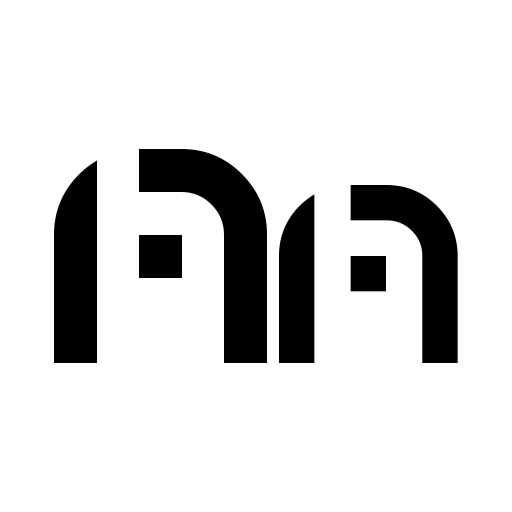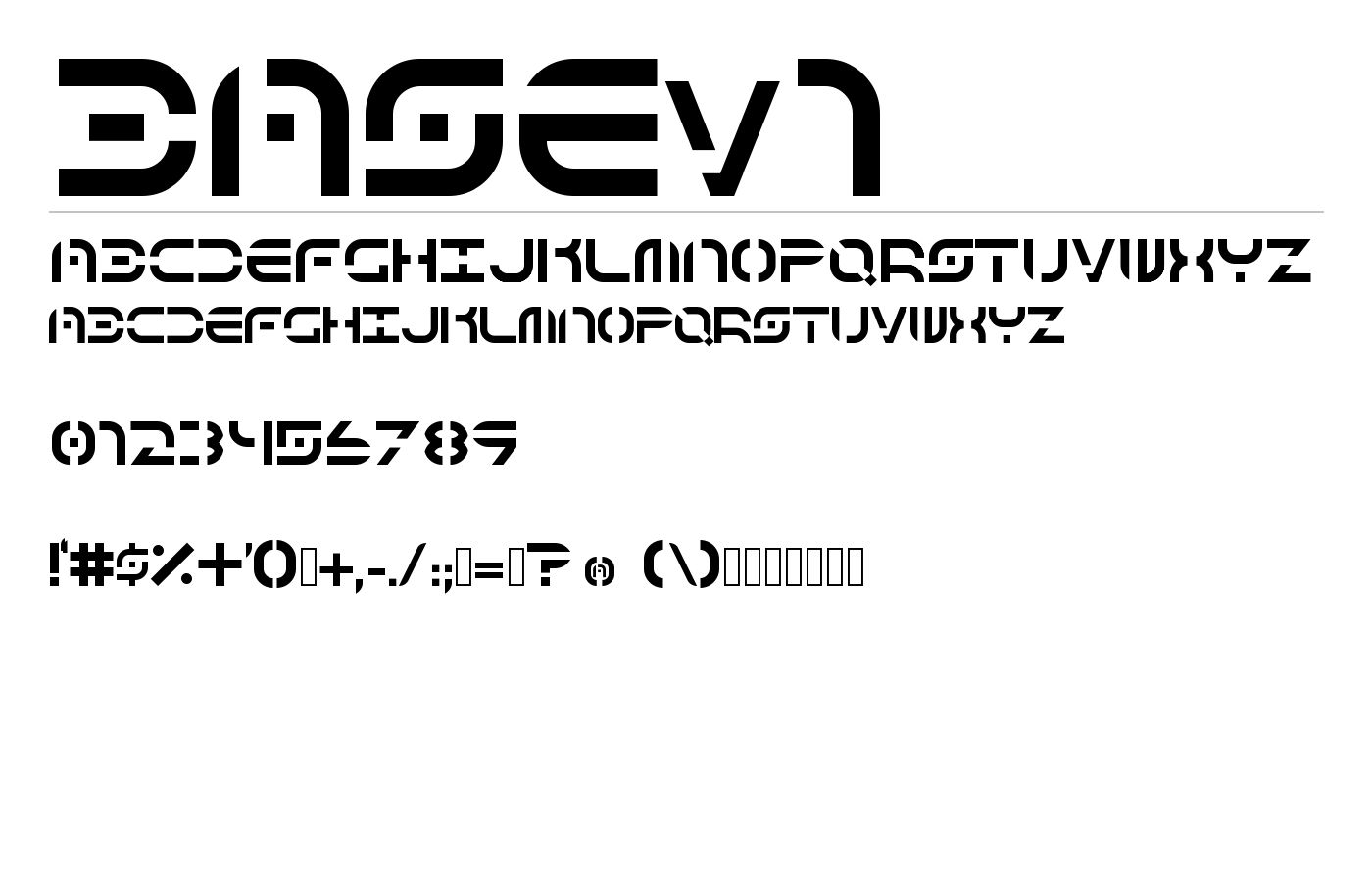
BASEv1 is a bold, futuristic sans serif font featuring a unique geometric style with sharp angles and distinct cutouts that create a high-tech, modern look. Its condensed width and relatively high x-height give it a compact yet impactful presence, making it ideal for striking headlines, logos, and branding in technology or sci-fi themed designs. This font stands out with its innovative letterforms, offering a dynamic and edgy vibe suited for forward-thinking and creative projects.
BASEv1 Font